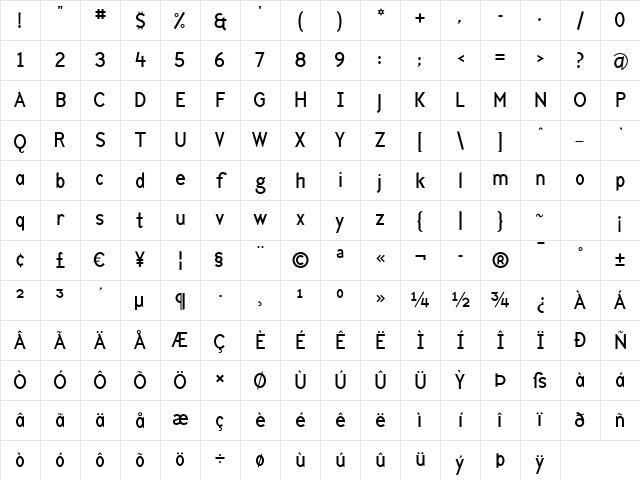
Complete GfIndex-Book Book glyph index. Displaying only characters natively supported by GfIndex-Book Book font.
GfIndex-Book is a composed and adaptable typeface that performs quietly and consistently across a wide range of design contexts.